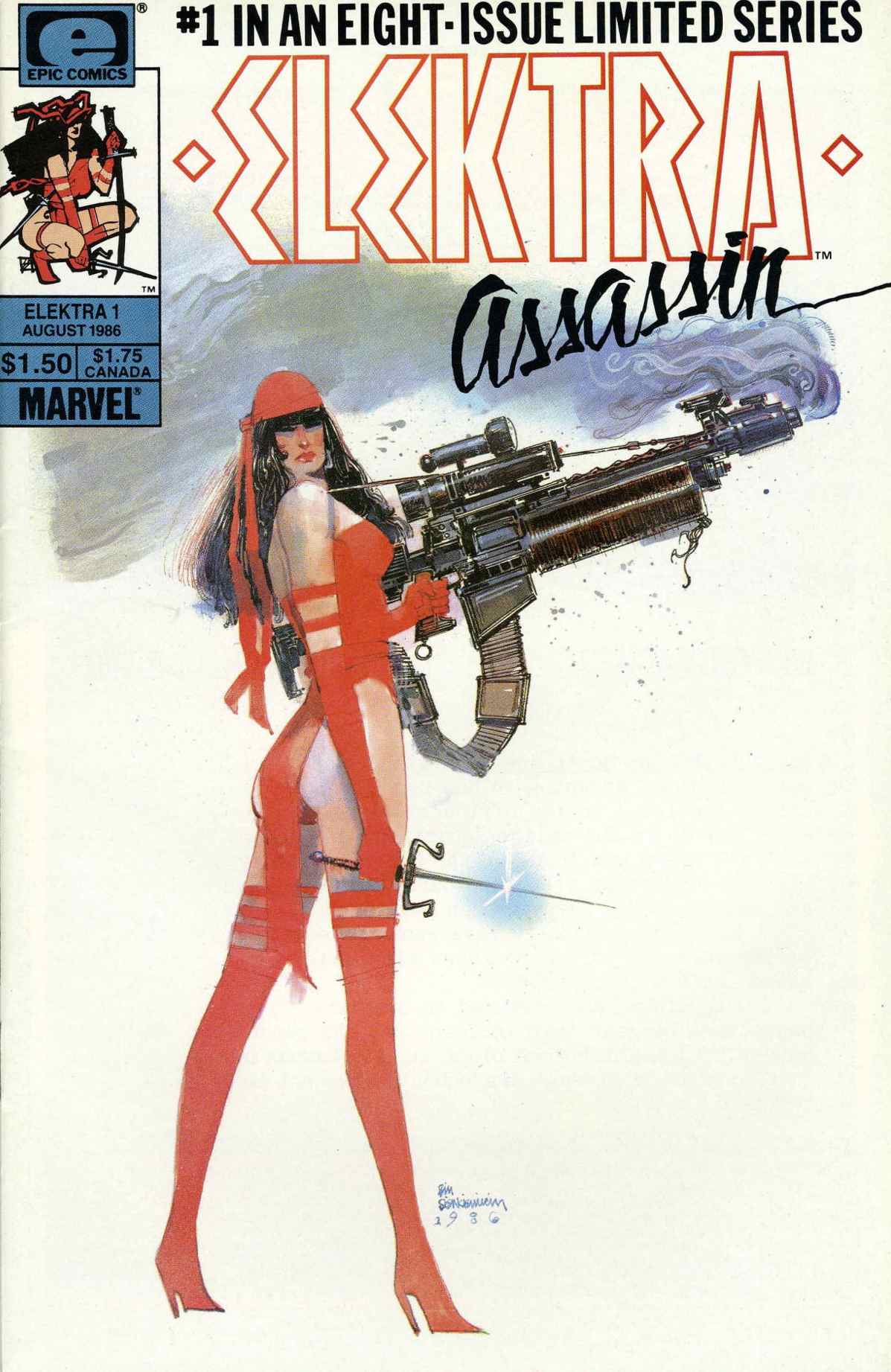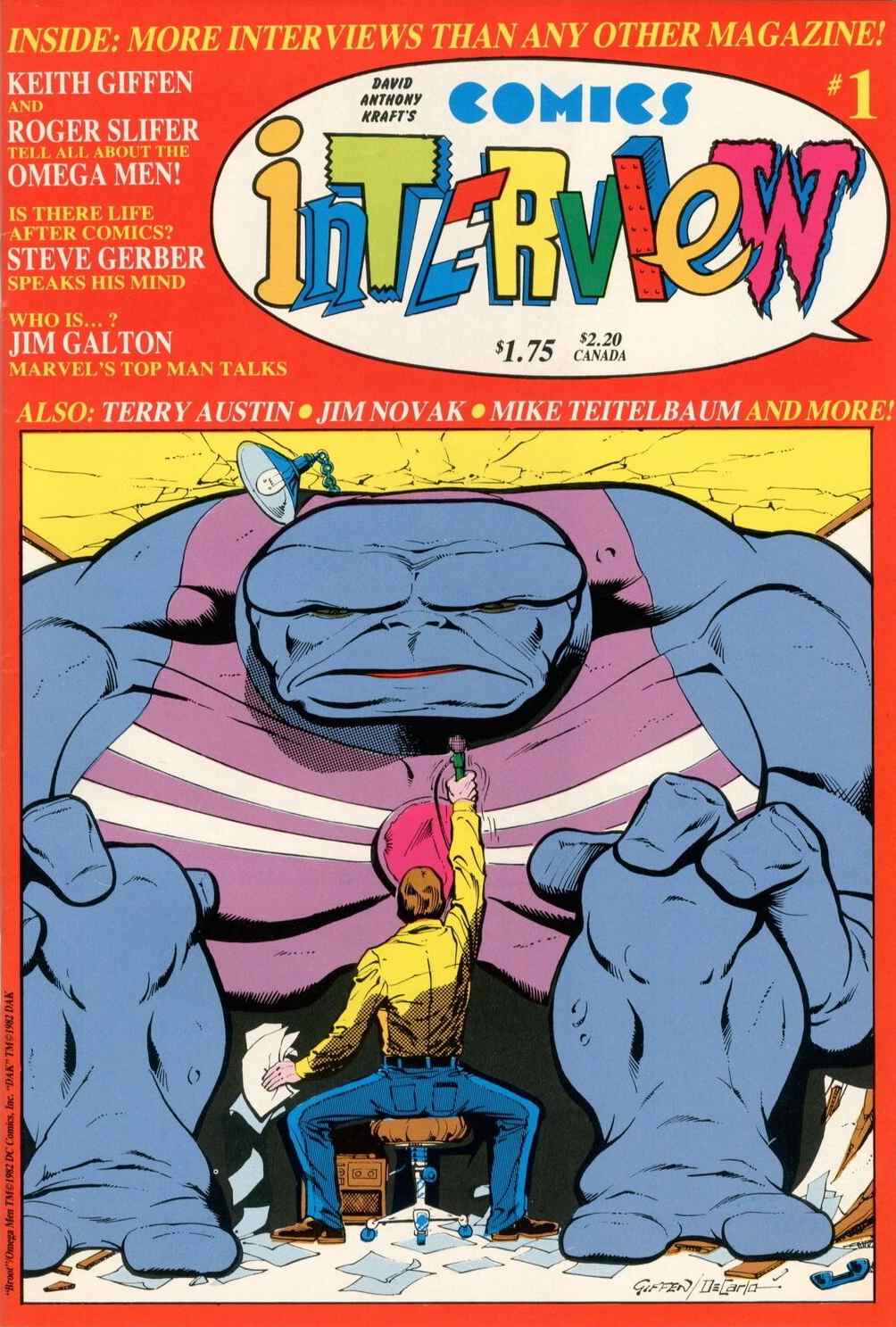
James Richard “Jim” Novak was born on September 14, 1955, in Chicago, Illinois. His middle name was found in a family tree at Ancestry.com. The birth information is from Wikipedia. Novak was the first of four children born to George Andrew Novak, a Chicago native, and Aleksandra Klimuk, a naturalized Russian according to the 1940 U.S. Federal Census. A passenger list said she arrived in the United States on March 31, 1939.
Novak’s parents were students at Chicago’s Kelly High School. His father was in the Class of 1949 and his mother in the Class of 1951.
They married on May 26, 1951 according to the Cook County, Illinois Marriage Index at Ancestry.com.
The names of Novak and his siblings, Patricia, Timothy and Carol, were in the Chicago Tribune obituaries of their mother (November 13, 1932–April 25, 1985) and father (April 24, 1930–January 27, 2003).
The Novak children attended Proviso West High School in Hillside, Illinois. Hillside is 14 miles (22.5 kilometers) west of Chicago. Below are Novak’s 1971 and 1972 class photographs from the yearbook, The Mural.
Novak’s senior photograph was not in the 1973 yearbook but he was pictured on the Mural’s staff page. He created and drew the character, Freddie, who appeared throughout the yearbook. Novak also lettered the five section spreads.
Novak was interviewed in David Anthony Kraft’s Comic Interview #1, February 1983. Below is an excerpt.
DAK: What decided you on lettering?
Jim: I was always interested in every facet of comics. I had and still haver a twelve-by-twelve foot room in my parent’s basement. I used to go down there and do the writing, drawing and lettering on a whole book of my own at about age thirteen, fourteen or fifteen. There was a guy who painted signs and he was looking for an assistant.
I needed a job and said I could learn, so he hired me. It was pretty easy for me and I learned to design lettering. And I figured that was a good way to break into comics. I also learned how to use a pen and a brush and got to be pretty good. When I was seventeen, I went to New York and spoke to John Verpoorten at Marvel and he said he would let me know about a job. I was getting homesick and moved back. I told him I didn’t think that I could hack it in New York. About a year and a half later, I was working at the sign shop again and was really sick of it, because I had done everything there was to painting signs. That’s when I came back to New York but Marvel wasn’t hiring at the time.
I went to DC and got my first job from Jack Adler for Wonder Woman. I was there for two or three jobs. I worked for Julie Schwartz. Then Marvel called me back and Sol Brodsky said they had a staff position. I felt it would be to my best interest to work on staff and get the benefit of other people’s experience.
DAK: In the production department?
Jim: Right. That’s when I started to learn about lettering and I got better and better. A few of the people in the field who helped me out are Danny Crespi, who took me under his wing; Irving Watanabe, who gave me a lot of advice, and whose lettering you hear little about; and Gaspar Saladino, purely for style. Roy Thomas gave me Conan and liked my work. I was on staff almost three years. I thought then maybe I should freelance. Now it’s become a very good job. The comics work lead to the movie work and that led to other work. I’m turning away work, but I enjoy comics.
In the interview Novak said he married Lidia on July 10, 1982. At the time, they were living in Flushing, New York. Later, they moved to Huntington, Long Island, New York.
Star Wars #1, July 1977
Power Man #50, April 1978
Stephen King’s Creepshow, 1982
The Futurians, Marvel Graphic Novel #9, 1983
Comics Interview #1, February 1983
The Saga of Crystar #1, May 1983
Marvel Super Heroes Secret Wars #1, May 1984
Elektra: Assassin #1, August 1986
Last of the Dragons, 1988
The Infinity Gauntlet #1, July 1991
The Punisher: War Zone #1, March 1992
The Devil Dinosaur logo may have been designed by Novak; see Todd Klein’s blog. Three of Novak’s logos are in Marvel By Design (2021) on pages 59—Daredevil, Marvel Super Heroes Secret Wars; 114—Daredevil; 220, 227 and 228—Iron Man.